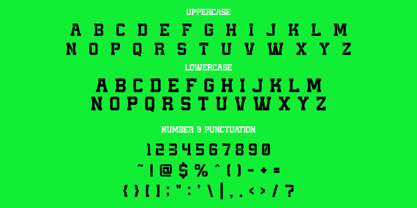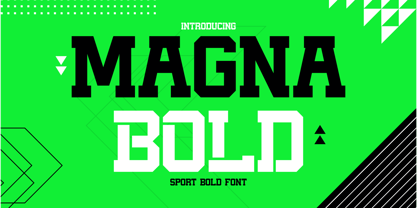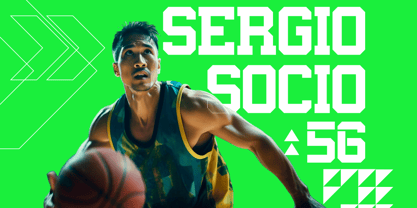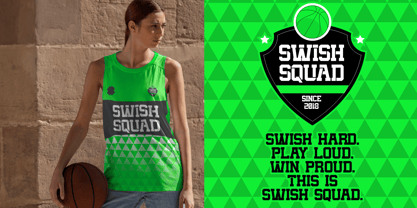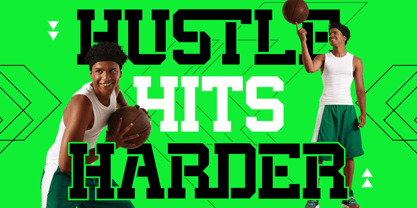
Magna Bold
by Shanaf
The Magna Bold Font Family was designed by Yesie Erma Yunita and published by Shanaf. Magna Bold contains 1 styles. More about this family
Elevate your typography game with Magna Bold, a powerhouse sport font that delivers impact, strength, and high-energy aesthetics. Designed with bold slab-serif features, sharp geometric edges, and solid letterforms, Magna Bold exudes confidence and performance from every angle. Each character strikes a perfect balance between athletic elegance and aggressive presence—ideal for projects that demand attention. The uppercase and lowercase variations maintain visual consistency while amplifying readability across digital and print media. With versatile punctuation and numeric support, this font is built for sports branding, team apparel, posters, and dynamic promotional graphics.
The layout of Magna Bold is meticulously crafted for clarity and assertiveness. Its structured form integrates seamlessly into energetic backgrounds, such as neon gradients or high-contrast sports photography. The visual hierarchy is strong, making it ideal for tournament titles, esports content, gym merchandise, and dynamic typographic logos. Whether you're designing for basketball jerseys, fitness campaigns, or sports-themed editorial spreads, Magna Bold empowers your typography with authority and motion. Be bold. Be athletic. Be unforgettable.
Designers: Yesie Erma Yunita
Foundry: Shanaf